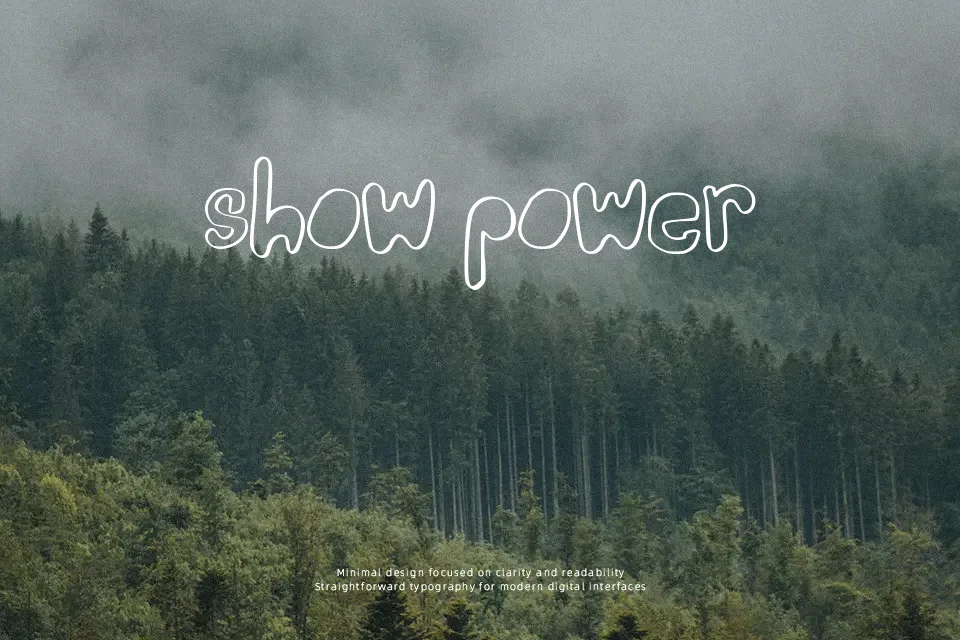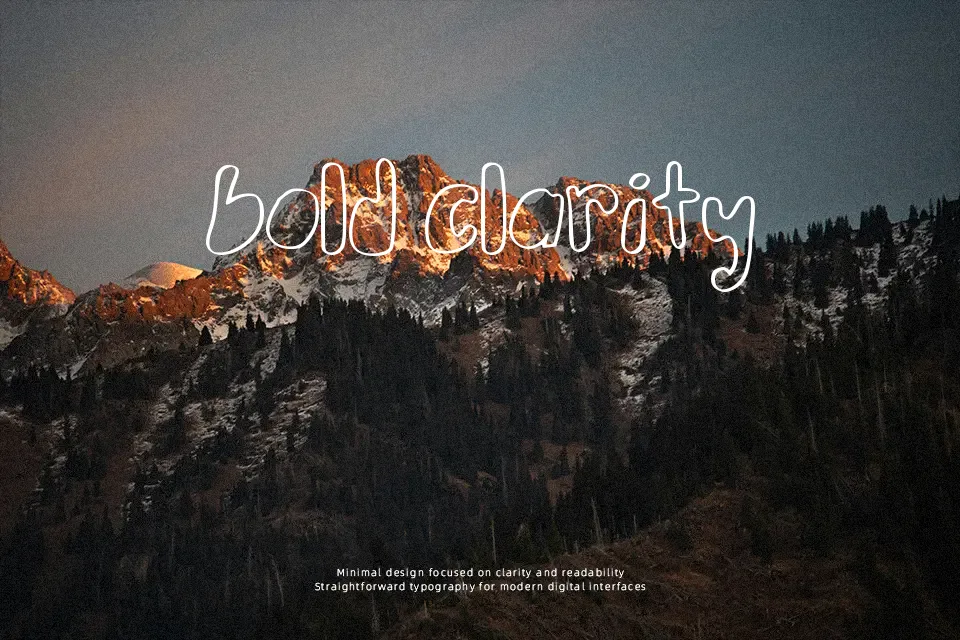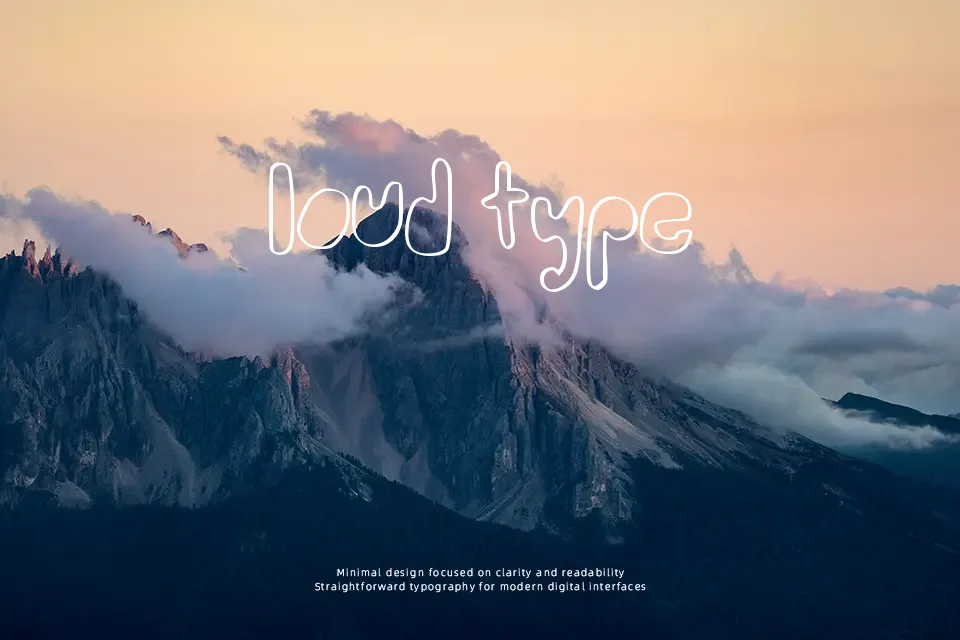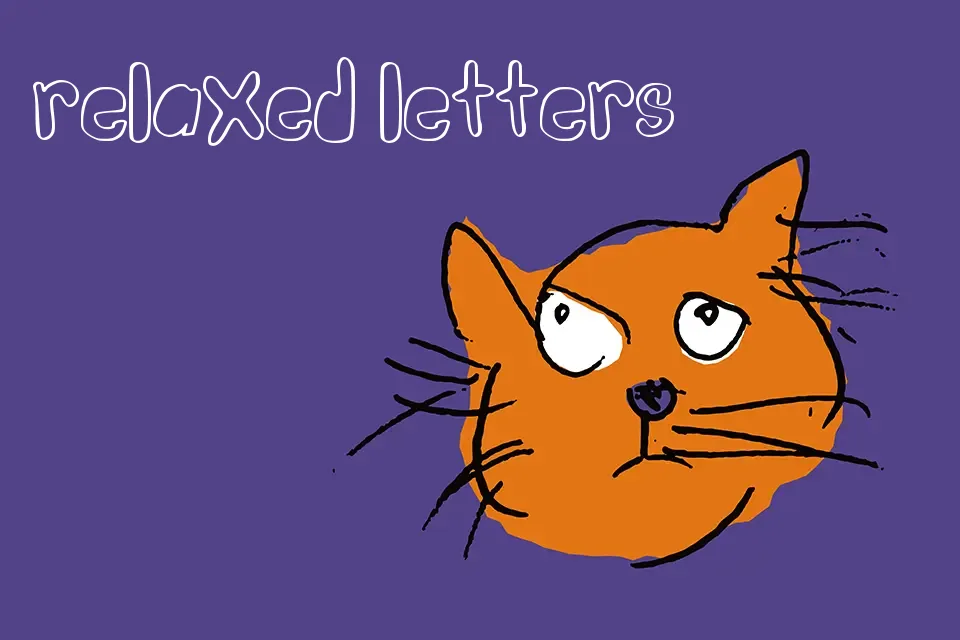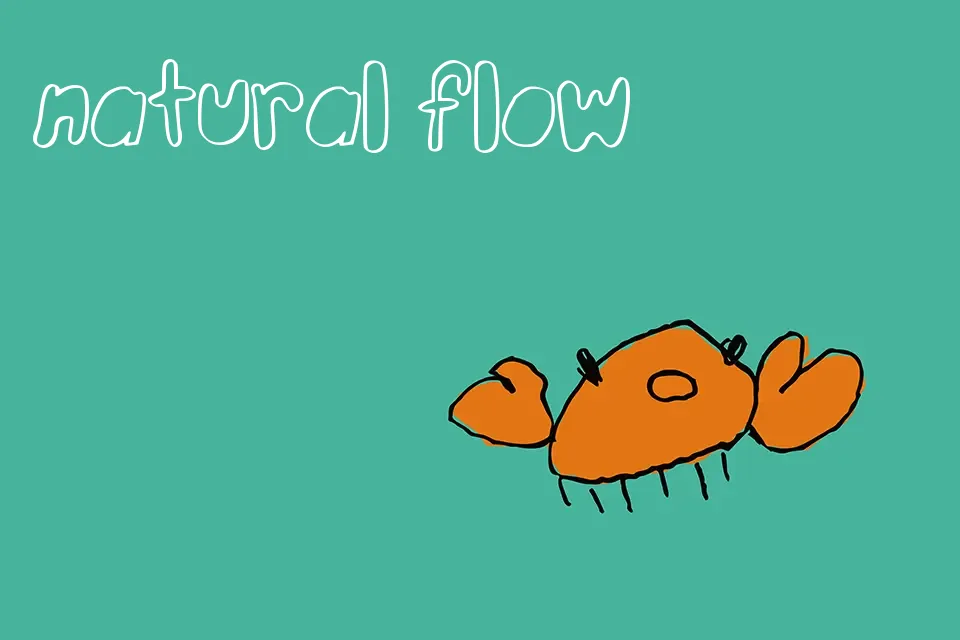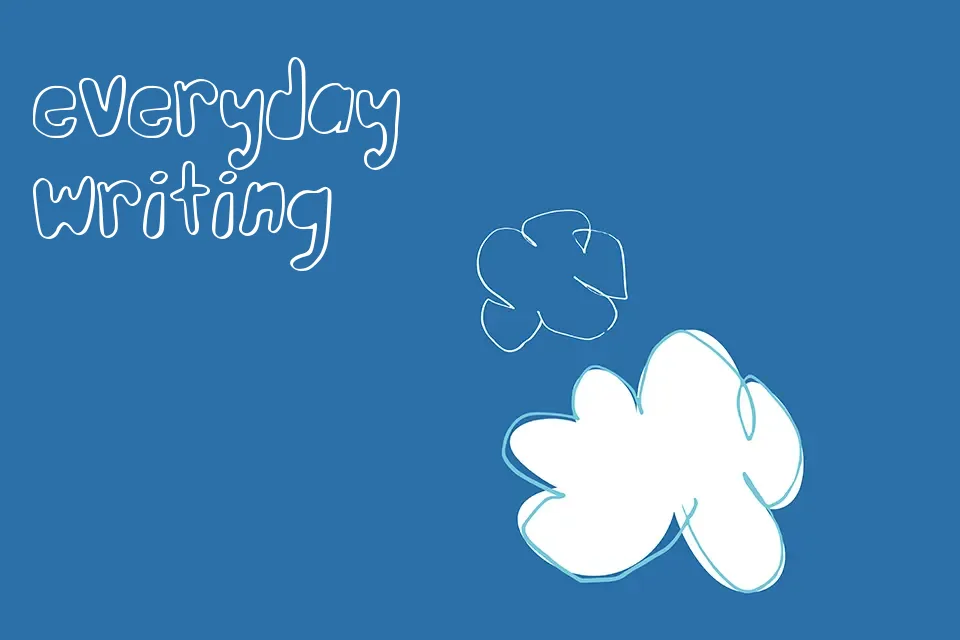
Adaline Font
Designed by Alexa Wolff
Adaline carries the loose, expressive energy of hand-lettered cartoon text — its strokes feel deliberately imperfect, with an organic weight variation that reads as personal rather than produced. The letterforms lean into a casual, slightly bouncy structure that gives headlines and short display text a warm, approachable tone. It works well for children’s content headers, indie brand logos, or whimsical event materials where rigid formality would feel out of place. That said, the limited glyph set (40 glyphs) is a real constraint — complex multilingual layouts or symbol-heavy designs are simply out of reach. For anything beyond Latin basic characters, designers will need a fallback or alternative.
Best For:- children’s book cover titles
– indie brand or handmade shop logos
– quirky event flyer headers
– casual social media quote graphics
Not Ideal For:- body text or long-form reading
– corporate or legal document design
– multilingual or accent-heavy layouts
– professional editorial typesetting
Perfect for branding, invitation, and kids, with a creative and cartoon style.